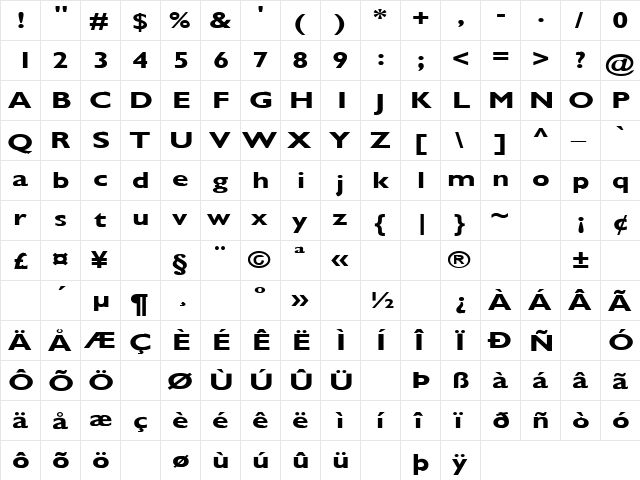
Quarter 1 Regular Font Preview
Quarter 1 Regular
Quarter 1 Regular Font Details
Design Context for Quarter 1 Typeface
Quarter 1 takes a measured approach to typography — its balanced proportions and neutral character make it a reliable workhorse for both digital and print work.